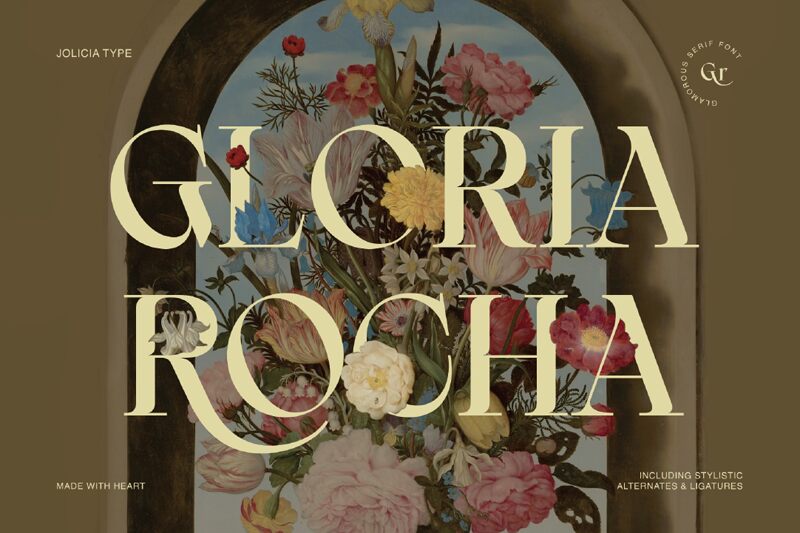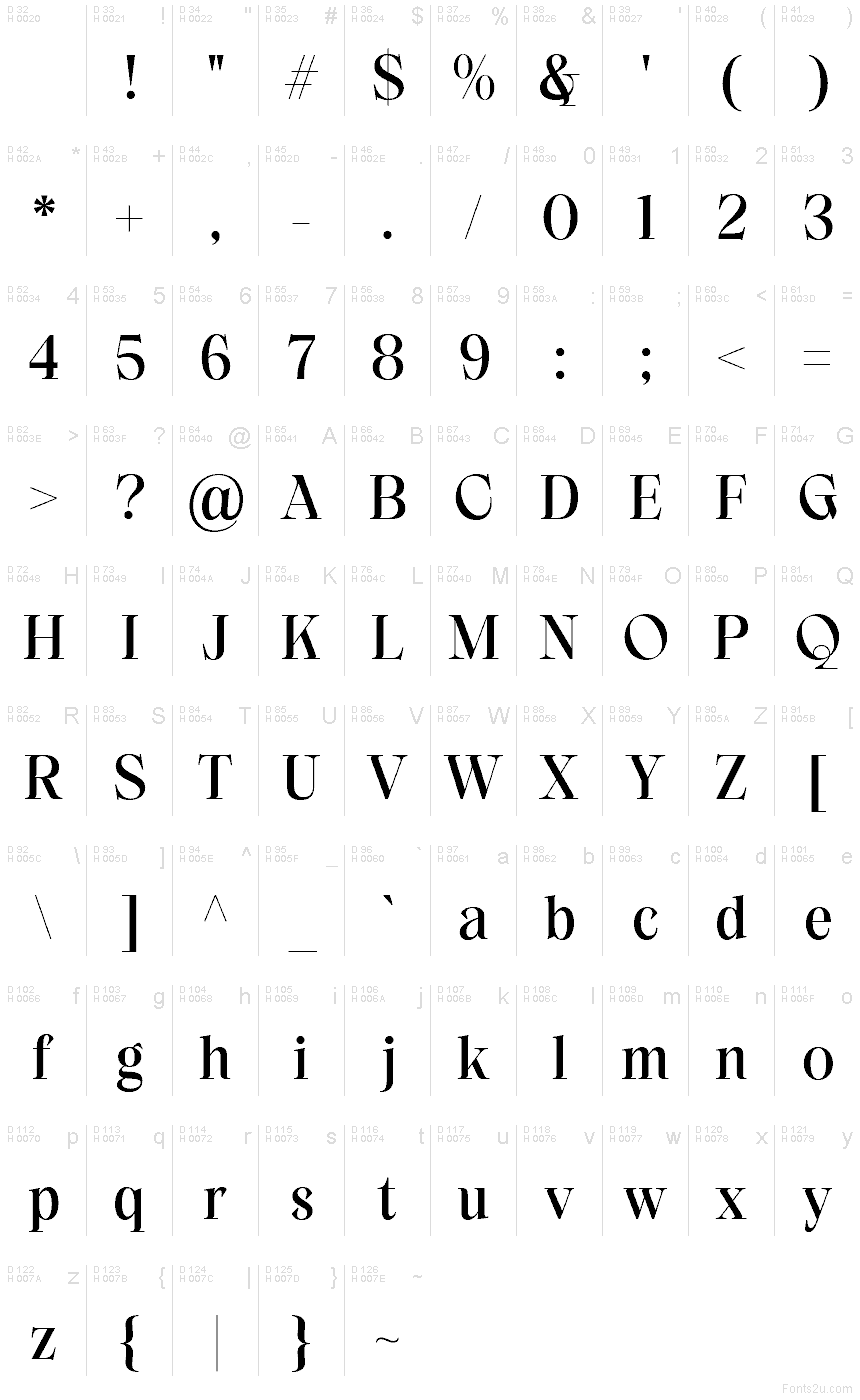
Gloria Rocha font by Jolicia Type Foundry is a free serif typeface that leans into sculpted contrasts and silky curves. The letters feel chiseled yet fluid—think crisp verticals meeting ribbon‑like strokes, with elegant ligatures and alternates that click into place. Regular and italic styles give you two voices of the same glamour, from poised to softly dramatic.
Using Gloria Rocha brings a couture polish to beauty branding, boutique logos, magazine mastheads, perfume labels, wedding suites, and upscale packaging. The rhythm is tight and confident, so headlines sing while shorter copy stays refined. Set names large with a touch of letterspacing, and pair this free font with a neutral sans to keep the spotlight on its lush forms.
Gloria Rocha by Jolicia Type